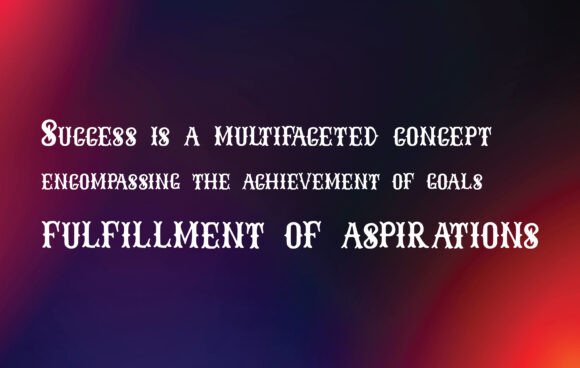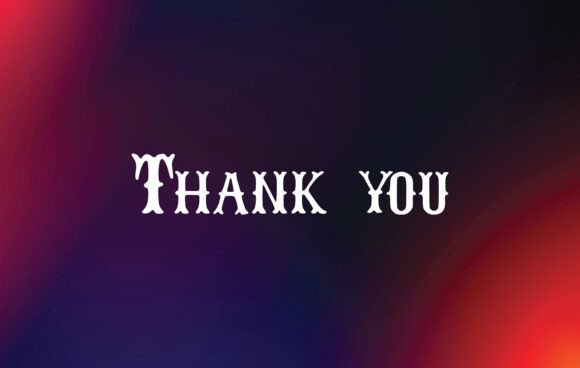
Unleashing the Power of Vintage Charm: Introducing Fabian Font
Remember the thrill of stumbling upon an old, forgotten typewriter in your grandparents’ attic? The thrill of rummaging through dusty drawers, searching for that perfect, unique font to give your next creative project that extra oomph? For designers, this feeling is a familiar one – and it’s exactly what the Fabian Font is designed to evoke.
With its bold, vintage serif style and ornamental flair, Fabian Font is the perfect addition to any design arsenal. Whether you’re creating retro posters, branding, logos, packaging, or editorial titles, this font brings a strong and stylish personality to your work. Its unique curves and gothic-inspired character design make it a valuable asset for designers looking to add a touch of old-school charm to their modern designs.
Fabian Font Key Features
- Size: The font family includes 4 weights: Light, Regular, Medium, and Bold, each with its unique characteristics and usage.
- Unique Characteristics: The font features a distinctive, elegant design with subtle flair and curvature, making it suitable for a variety of applications, including luxury brands, high-end products, and sophisticated publications.
- Kerning and Ligatures: The font includes advanced kerning and ligature features, ensuring that text sets are visually appealing and professional-looking.
Fabian Font Review
Overall, I think the Fabian font has some great qualities, but also a few areas for improvement.
- Unique style: The Fabian font has a distinct, modern aesthetic that sets it apart from more common fonts.
- Good legibility: The font is easy to read, even at smaller sizes, making it a great choice for body text.
- High-quality rendering: The font renders well on a variety of devices and screens.
- Limited font weights: The Fabian font only comes in a few weights, which can limit its versatility.
- No italic or oblique styles: If you need to use italic or oblique text, you’ll need to use a different font.
- Not ideal for headlines: While the font is great for body text, it may not be the best choice for headlines, which often require a bolder, more attention-grabbing font.
Overall, I think the Fabian font is a solid choice for projects where you want a modern, legible font. However, if you need a lot of customization options or want to use the font for headlines, you may want to consider other options.
The Fabian font is perfect for:
- Headings and titles
- Posters and flyers
- Brochures and magazines
- Business cards and resumes